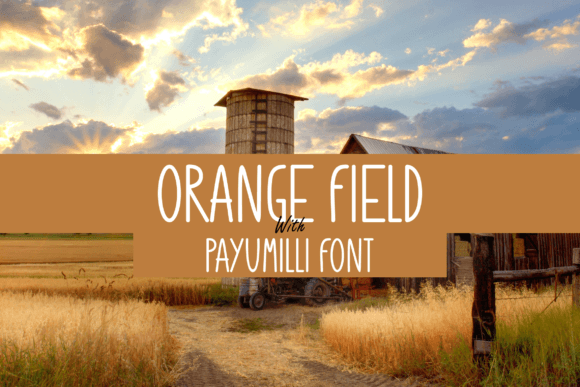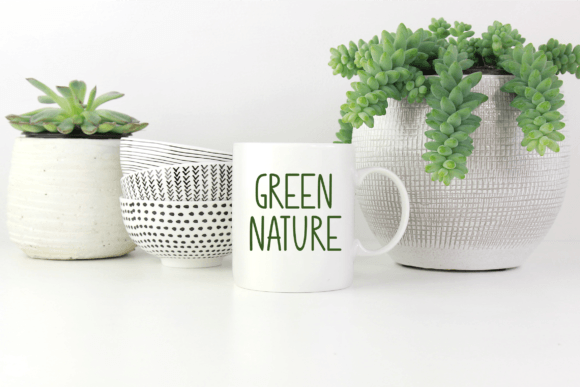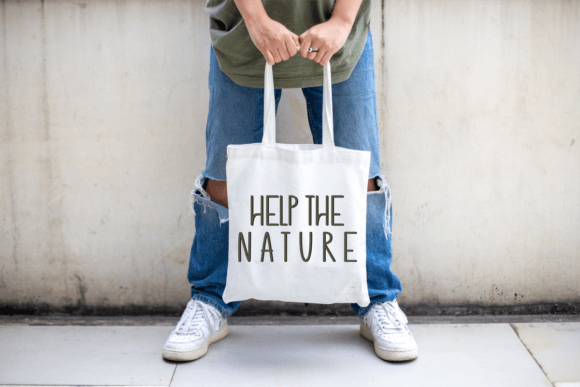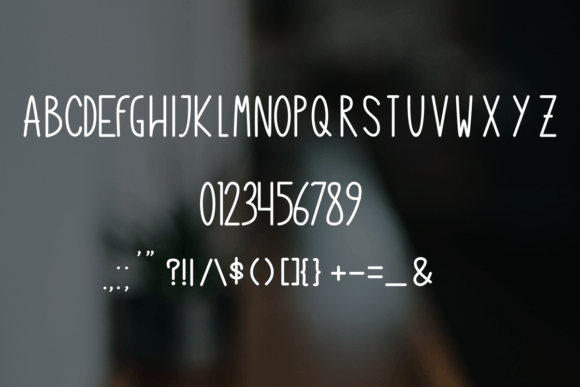
Payumilli Font
About Payumilli Font
Introducing Payumilli, a modern all-caps handwritten font designed to bring a cool and contemporary vibe to your designs. Perfect for a variety of applications, Payumilli is well-suited for products such as logos, t-shirts, mock-ups, banners, and more. Its modern aesthetic adds a touch of freshness and style, making your designs cooler and more appealing.
The all-caps style of Payumilli adds a bold and impactful element to your text. This makes it particularly effective for designs that require a strong and modern presence, such as logos and banners.
In the realm of apparel, Payumilli becomes a standout choice for t-shirts and shirts. The modern handwriting style enhances the overall look, creating designs that are both trendy and visually engaging.
For mock-ups and banners, Payumilli adds a contemporary and cool touch. Its clean lines and modern appeal make it suitable for a wide range of visual materials, ensuring that your designs resonate with a modern audience.
The versatility of Payumilli extends to various design contexts, allowing it to adapt seamlessly to your creative needs. Whether you’re working on branding, merchandise, or promotional materials, this font is designed to make your designs cooler and more modern.
In summary, Payumilli is not just a font; it’s a modern handwriting style that elevates the cool factor of your designs. Whether you’re creating logos, apparel, or banners, let Payumilli be the font that brings a fresh and contemporary vibe to your creative projects.